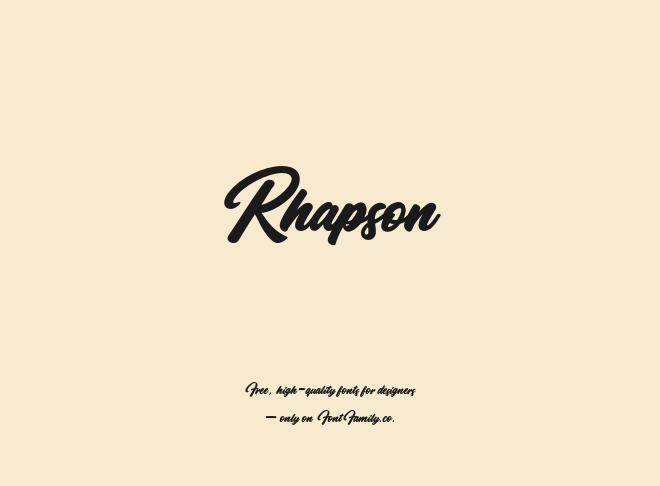
Rhapson Font
Rhapson Font is an elegant and modern typeface with a decorative touch, perfect for a wide variety of design projects. The font's sleek lines and clean curves give it a contemporary feel, while its decorative elements add a touch of sophistication. Rhapson Font is ideal for high-end branding, logo designs, and event invitations. It stands apart from other fonts with its unique combination of modern and decorative elements. The font's versatility makes it a great choice for designers looking to add a touch of elegance to their designs. With its Open Font License, Rhapson Font is freely available for both personal and commercial use, making it a valuable addition to any designer's toolkit.